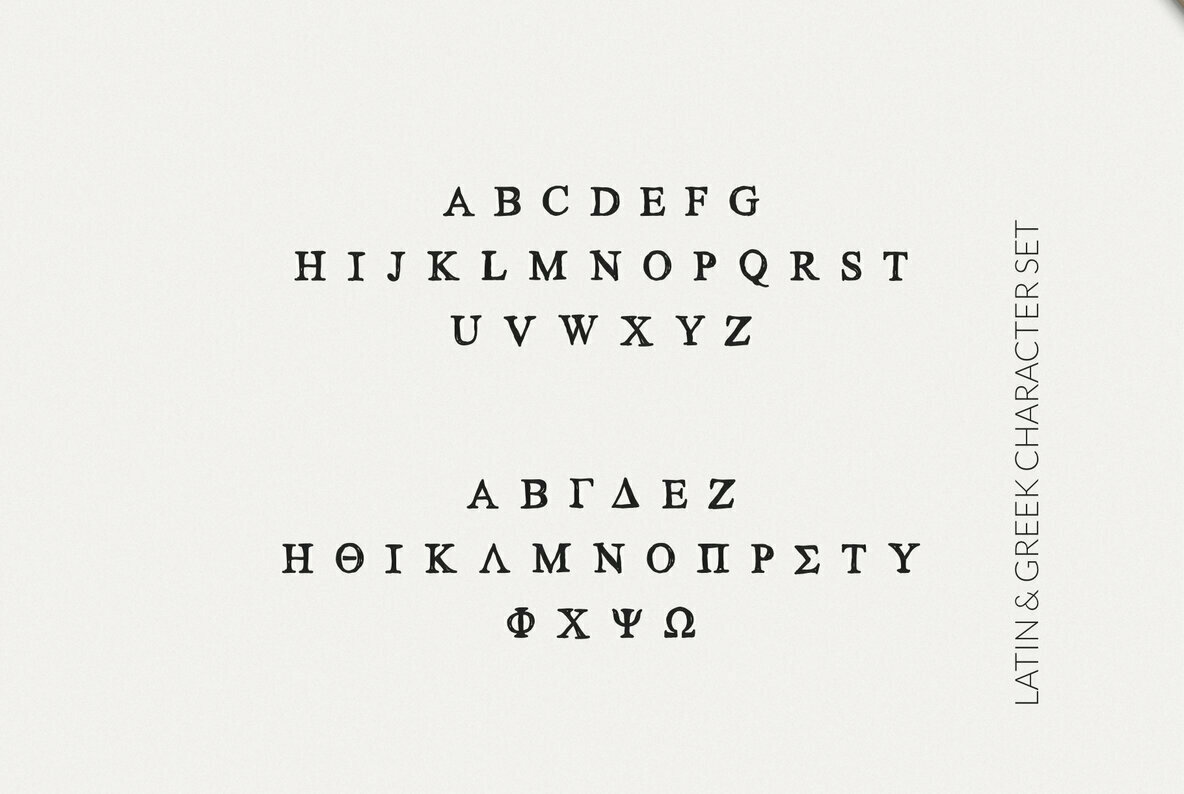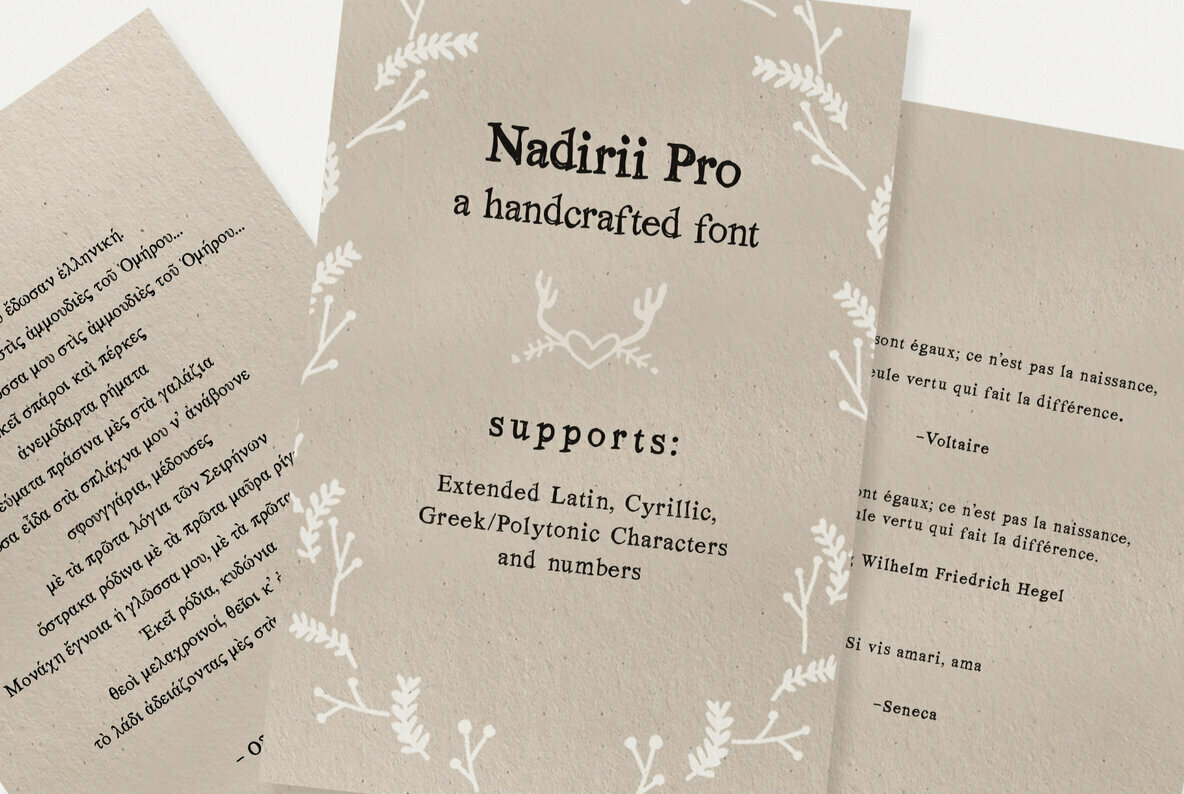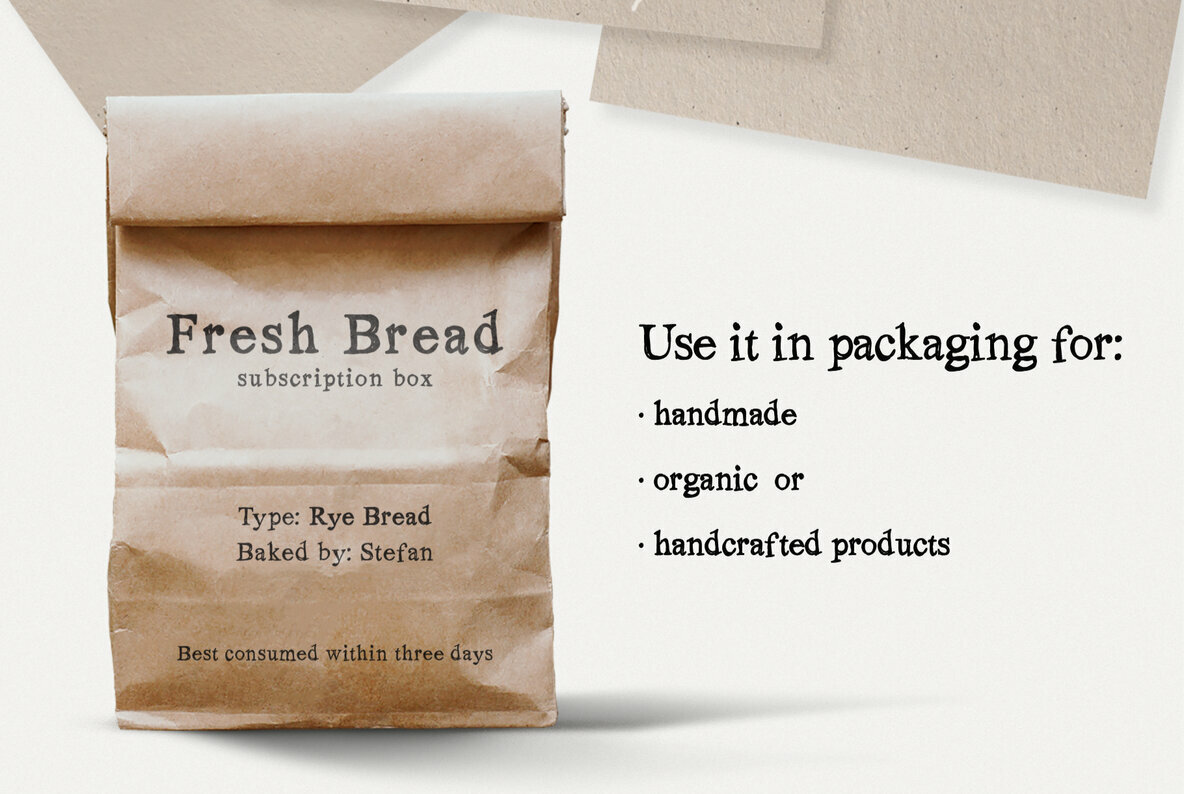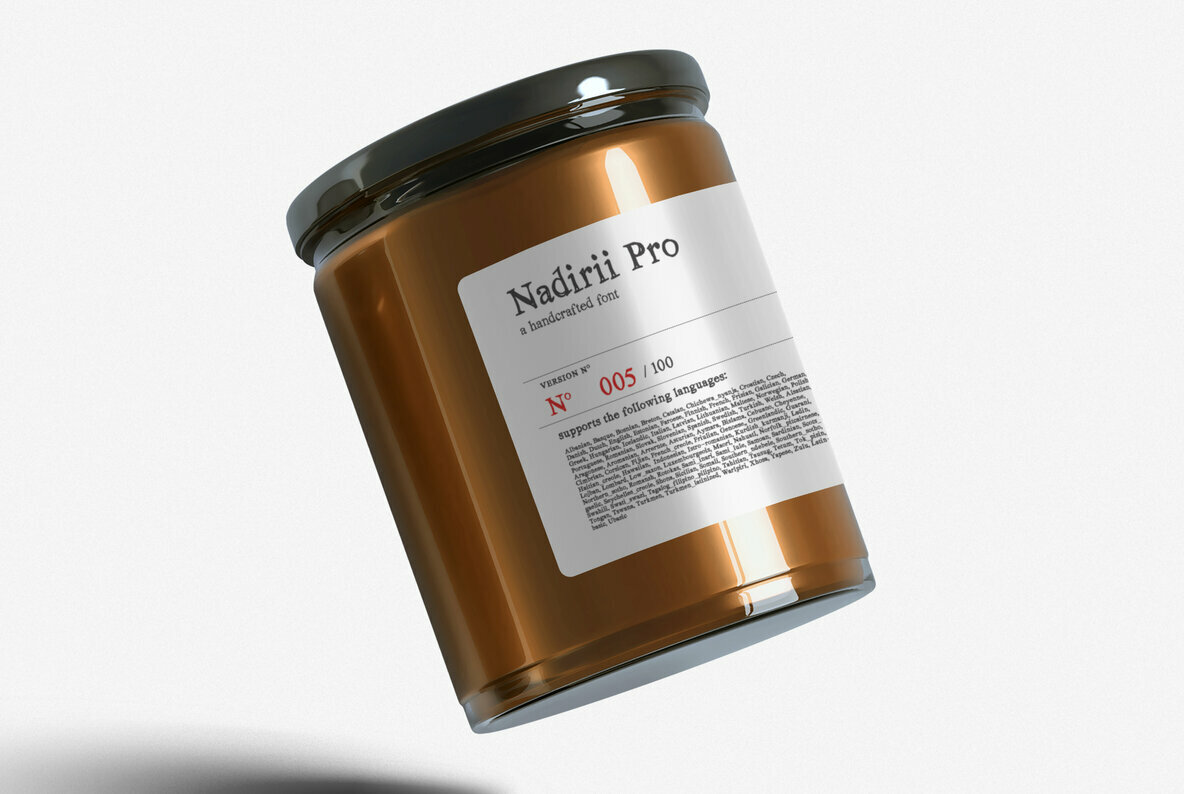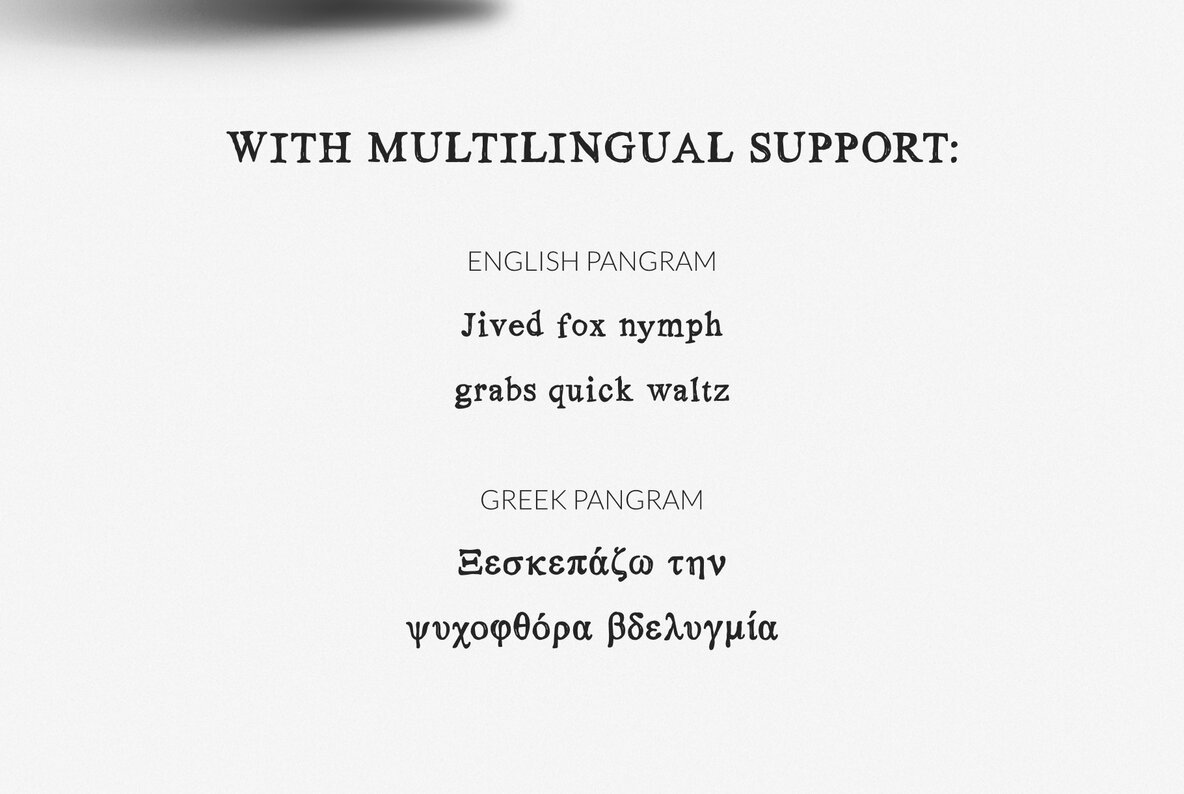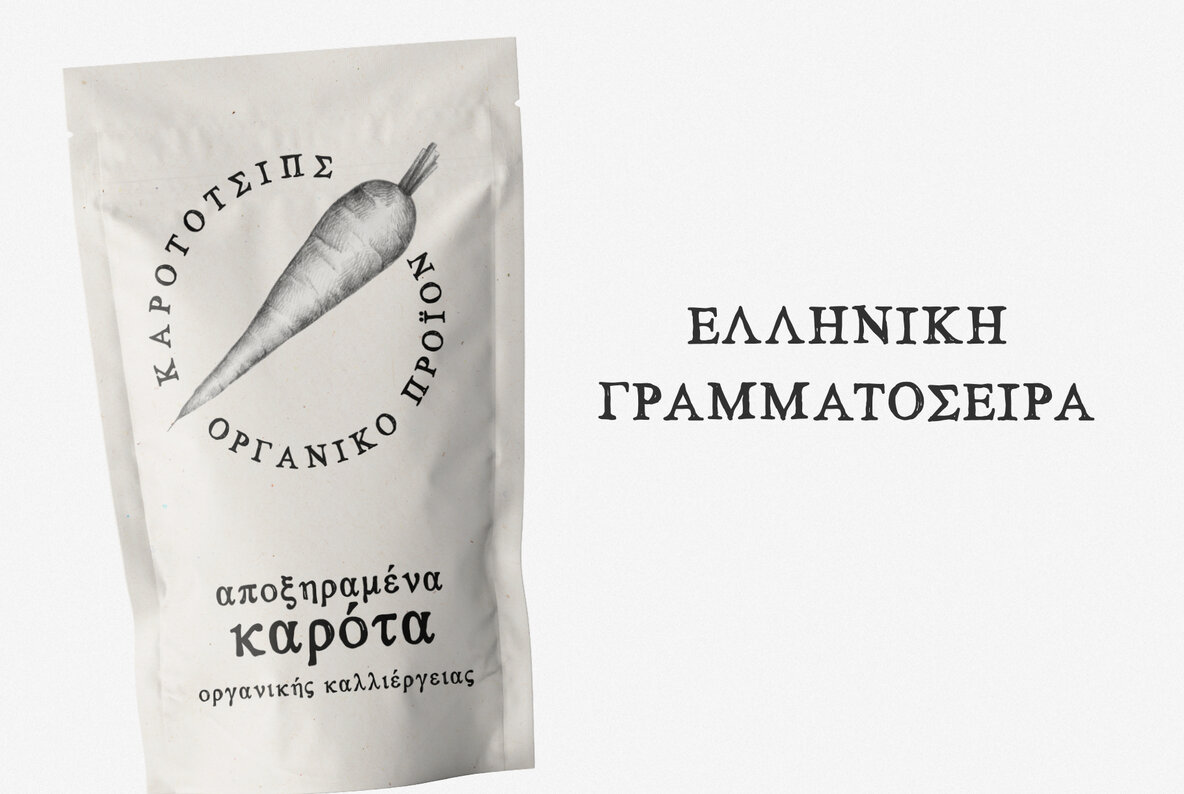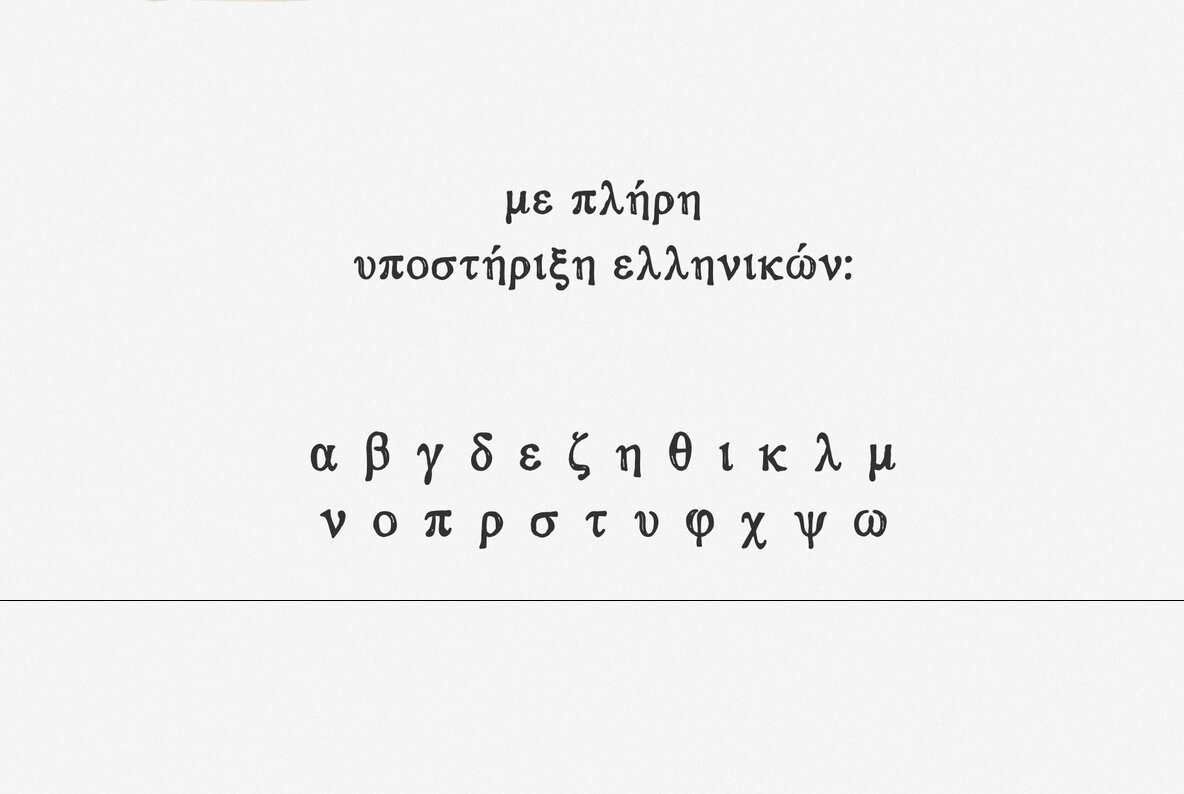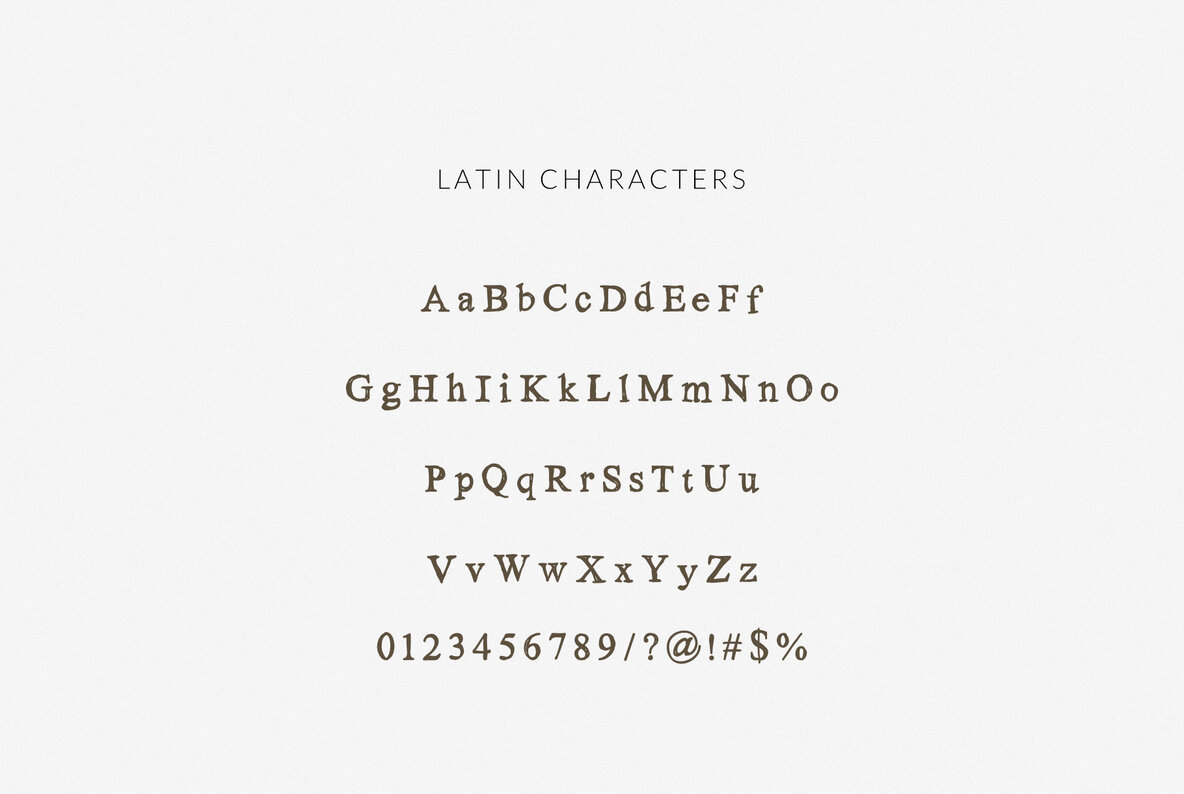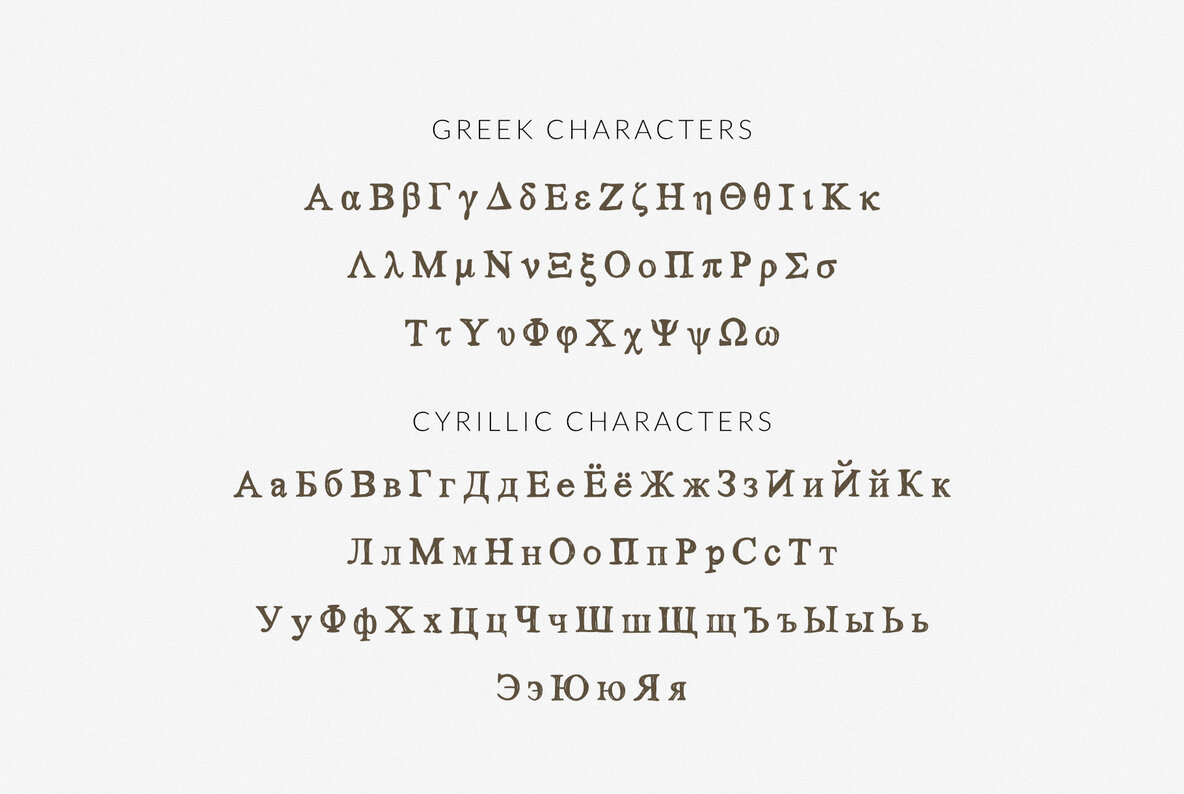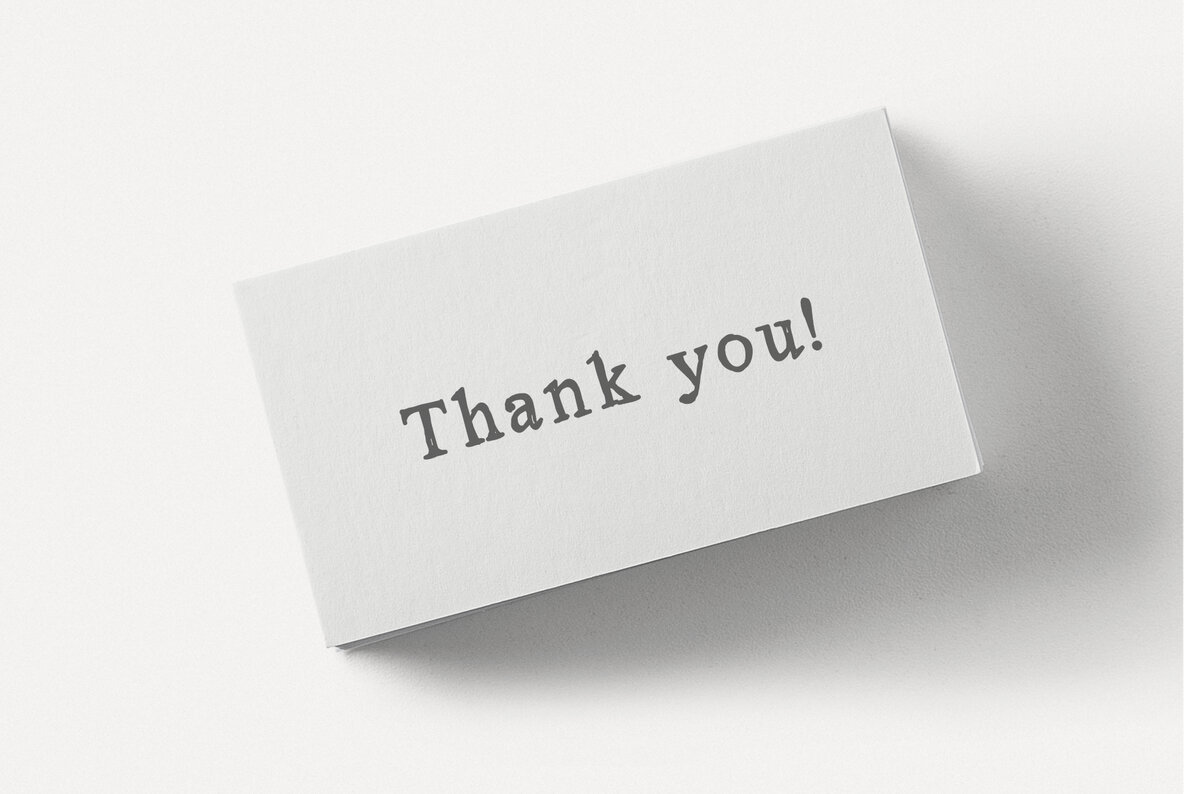
Nadirii Pro Font | Handcrafted is a display font with support Greek / Greek polytonic, Cyrillic and extended Latin characters.
Nadirii Pro Font is a handcrafted typeface with a nostalgic touch.
This font with support for over 30 language can be a perfect match for all your food packaging projects and for branding your organic handcrafted products. It can be ideal typeface for storytellers, too! The crafty feeling of this font is pairing perfectly with illustrations and book covers.
Character set in Extended Latin, Greek, Greek polytonic, Cyrillic, punctuation marks, diacritics, and numbers.